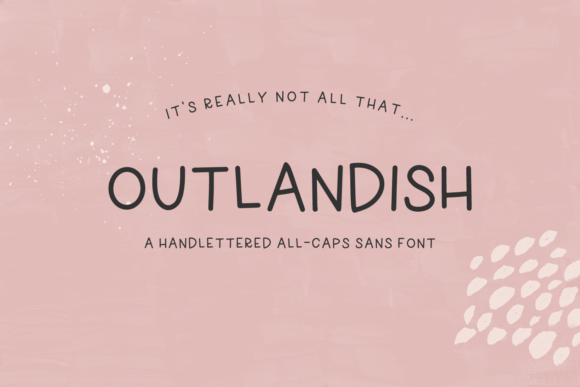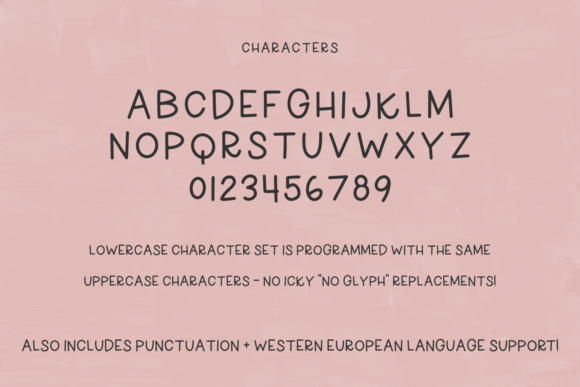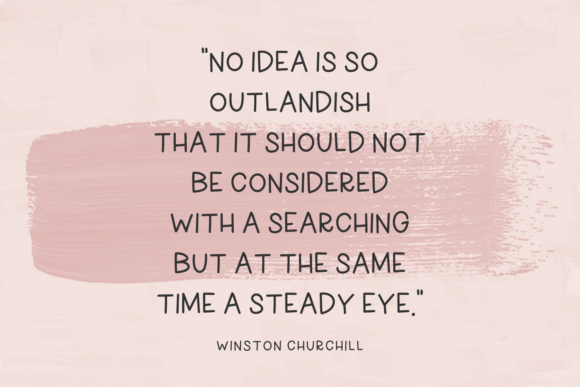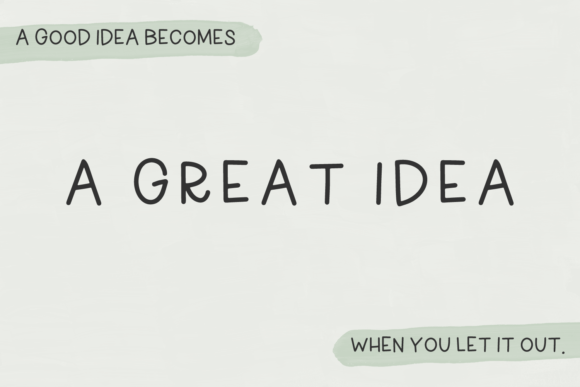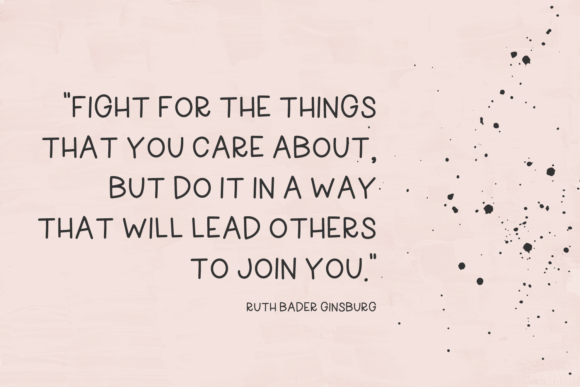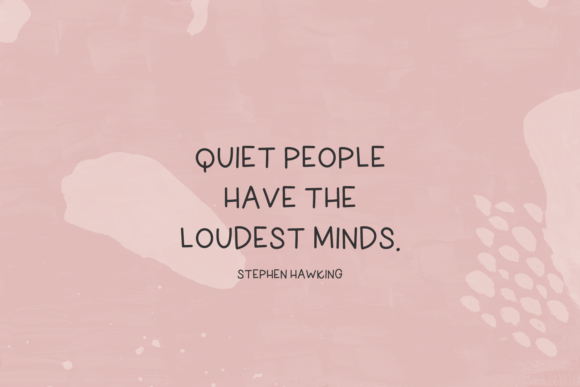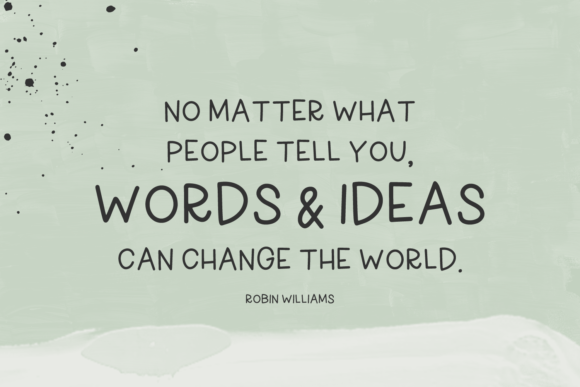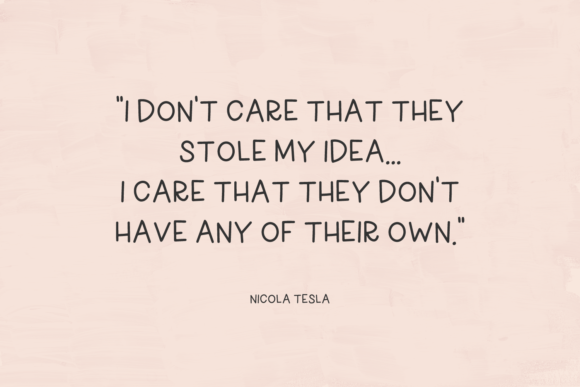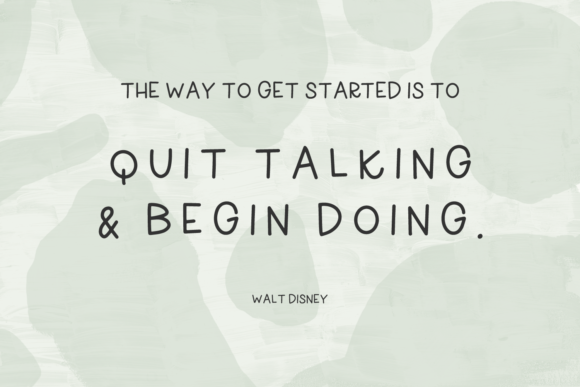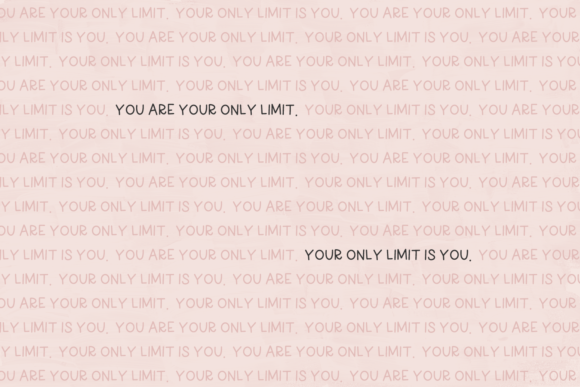
Outlandish Font
About Outlandish Font
Outlandish is a charming and playful handwritten font with a cute and childlike appeal. Its simplicity and authenticity make it perfect for adding a personal and realistic touch to your designs.
The font’s handwritten style creates a warm and approachable atmosphere, making it ideal for projects that require a friendly and welcoming vibe. It’s a versatile font that works well for a variety of design purposes, such as children’s books, nursery decorations, birthday invitations, greeting cards, craft projects, and more.
The simplicity of Outlandish allows it to shine in designs where a natural and unpretentious look is desired. It evokes the innocence and carefreeness of childhood, making it a delightful choice for projects that target a young audience.
When used in digital or print media, Outlandish adds a personal touch that can’t be replicated with standard fonts. Its imperfections and hand-drawn style give your designs a unique and charming character, setting them apart from more formal and polished typography.
For a more playful and whimsical touch, you can experiment with the various letterforms and alternative characters available in the font. By mixing and matching these elements, you can create customized and lively compositions that reflect the spirit of your design concept.
Whether you’re creating a logo for a kids’ brand, designing fun social media graphics, or crafting DIY projects, Outlandish will infuse your work with a sense of authenticity and personality. It brings a refreshing and genuine look to your designs that resonates with both young and young-at-heart audiences.
In conclusion, Outlandish is a cute, childlike, and simple handwritten font that adds a personal and realistic feel to your designs. Its authentic handwritten look and feel make it an excellent choice for various projects targeting a young audience or those seeking a playful and whimsical touch. Embrace the charm of Outlandish to create delightful and engaging designs that captivate your audience’s hearts.